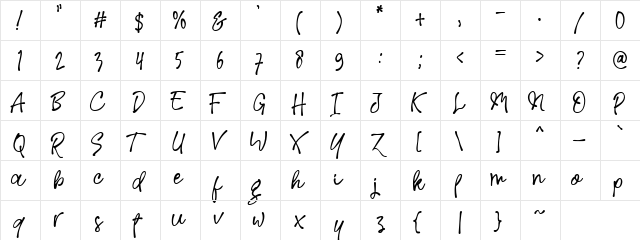
Rose Colored Regular
| Foundry | Letterhend Studio |
| Designer | Letterhend Studio |
Design Context for Rose Colored Typeface
Rose Colored is a composed and adaptable typeface that performs quietly and consistently across a wide range of design contexts.